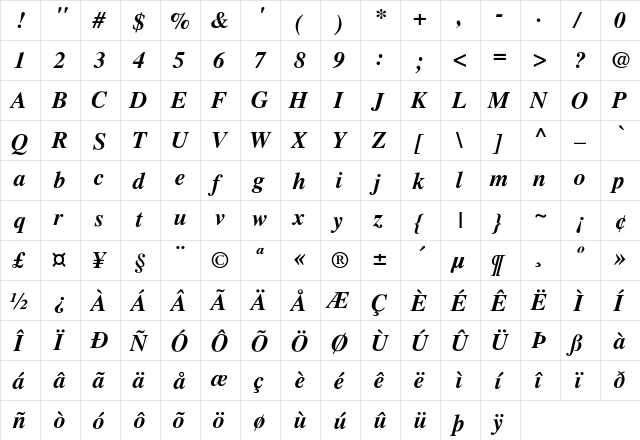
Times-BoldItalic Regular Font Preview
Times-BoldItalic Regular
Design Context for Times-BoldItalic Typeface
Times-BoldItalic is a composed and adaptable typeface that performs quietly and consistently across a wide range of design contexts. Its italic angle brings a sense of urgency and motion to the letterforms. Its bold stroke weight gives it real presence on the page.
Pro Tip: Try Times-BoldItalic for annotation and caption copy alongside an upright companion — the contrast in angle creates a dynamic but ordered typographic system.